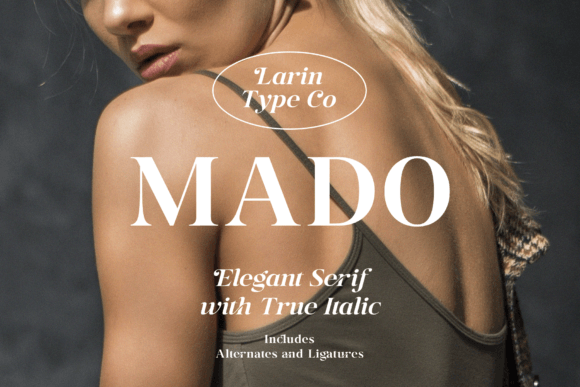
Unveil the Mado Font, an exquisite creation by Pasha Larin, designed to captivate and enchant. This serif font exudes elegance and sophistication, with its contrasting medium weight adding a touch of intrigue. Prepare to be mesmerized as you explore the boundless possibilities of Mado, a font that will transform your creative projects into stunning masterpieces.
Step into the world of fashion and let Mado be your guiding light. Its refined curves and delicate serifs evoke a sense of timeless glamour, making it the perfect choice for logos, branding, and packaging that demand attention. Imagine your designs adorned with Mado's timeless beauty, attracting customers like moths to a flame.
Mado's versatility extends beyond the realm of fashion, making it an ideal companion for wedding invitations, business cards, and titles. Its readability and recognizability ensure that your messages will be conveyed with clarity and impact, leaving a lasting impression on your audience.
With Mado at your disposal, you'll find yourself effortlessly creating designs that radiate sophistication and charm. Its timeless appeal will elevate your projects to new heights, captivating and enchanting all who lay their eyes upon them.
Unlock the power of Mado today and embark on a creative journey that knows no bounds. Let its elegance and versatility inspire you to create designs that stand the test of time, leaving an indelible mark on the world of design.